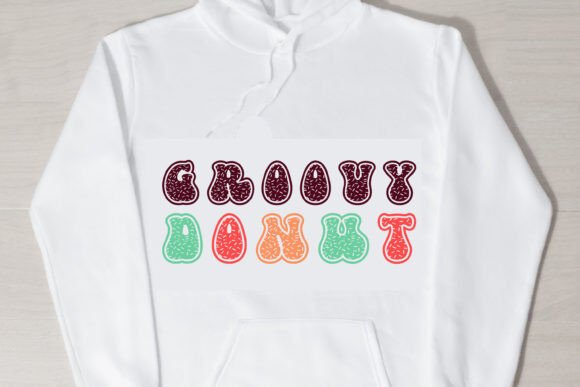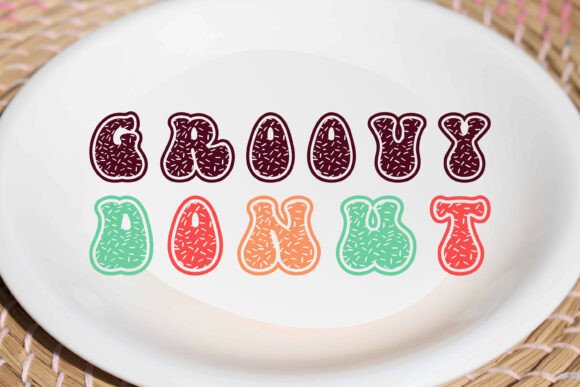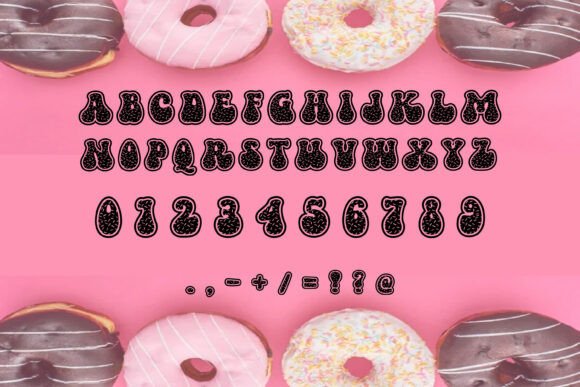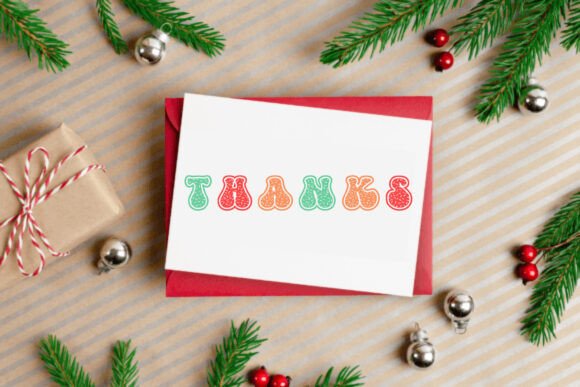
Groovy Donut Font: Elevate Your Designs with a Vibrant Splash of Joy
Are you tired of using the same old fonts in your creative projects? Look no further! Our Groovy Donut Font is here to inject a vibrant splash of joy and whimsy into your designs. With its playful and charming vibe, this font is perfect for designers and crafters who want to add a sprinkle of magic to their work.
The Perfect Fit for Creative Projects
Our Groovy Donut Font is an absolute fit for a wide range of creative projects, including branding initiatives, packaging designs, riveting logotypes, and gripping headlines. Its unique and eye-catching design makes it perfect for businesses and individuals who want to stand out from the crowd. Whether you’re designing a logo, brochure, or website, this font is sure to elevate your design endeavors.
Add a Sprinkle of Charm to Your Creatives
But it’s not just limited to commercial projects. Our Groovy Donut Font is also perfect for personal creatives, such as wedding invitations, greeting cards, and party decorations. Its whimsical and playful design adds a touch of charm and personality to any project, making it a great way to make your designs more engaging and memorable.
Experience the Transformative Power of Groovy Donut Font
With our Groovy Donut Font, you can experience the transformative power of a well-designed font in your creative projects. Its unique and uplifting design has the power to elevate your designs and make them more engaging and effective. Whether you’re a designer, crafter, or DIY enthusiast, this font is sure to inspire you to create something amazing.
Key Features of Groovy Donut Font
- Unique and eye-catching design: Our Groovy Donut Font features a unique and eye-catching design that’s sure to grab attention.
- Playful and whimsical vibe: This font has a playful and whimsical vibe that’s perfect for creative projects that need a touch of personality.
- Perfect for branding and packaging designs: Its bold and eye-catching design makes it perfect for branding and packaging designs that need to stand out.
- Great for wedding invitations and personal creatives: Its charming and whimsical design makes it perfect for wedding invitations, greeting cards, and other personal creatives.
- Use it as a headline font: Our Groovy Donut Font is perfect for headlines and titles. Use it to grab attention and add a touch of personality to your designs.
- Pair it with a simple font: For body text, pair our Groovy Donut Font with a simple and clean font to create a striking contrast.
- Experiment with different colors: Our Groovy Donut Font looks great in a variety of colors. Experiment with different colors to find the one that works best for your design.
In conclusion, our Groovy Donut Font is a vibrant and playful font that’s perfect for designers and crafters who want to add a sprinkle of joy and whimsy to their creative projects. With its unique and eye-catching design, it’s perfect for branding initiatives, packaging designs, riveting logotypes, and gripping headlines. So why wait? Download our Groovy Donut Font today and experience the transformative power of a well-designed font in your designs.